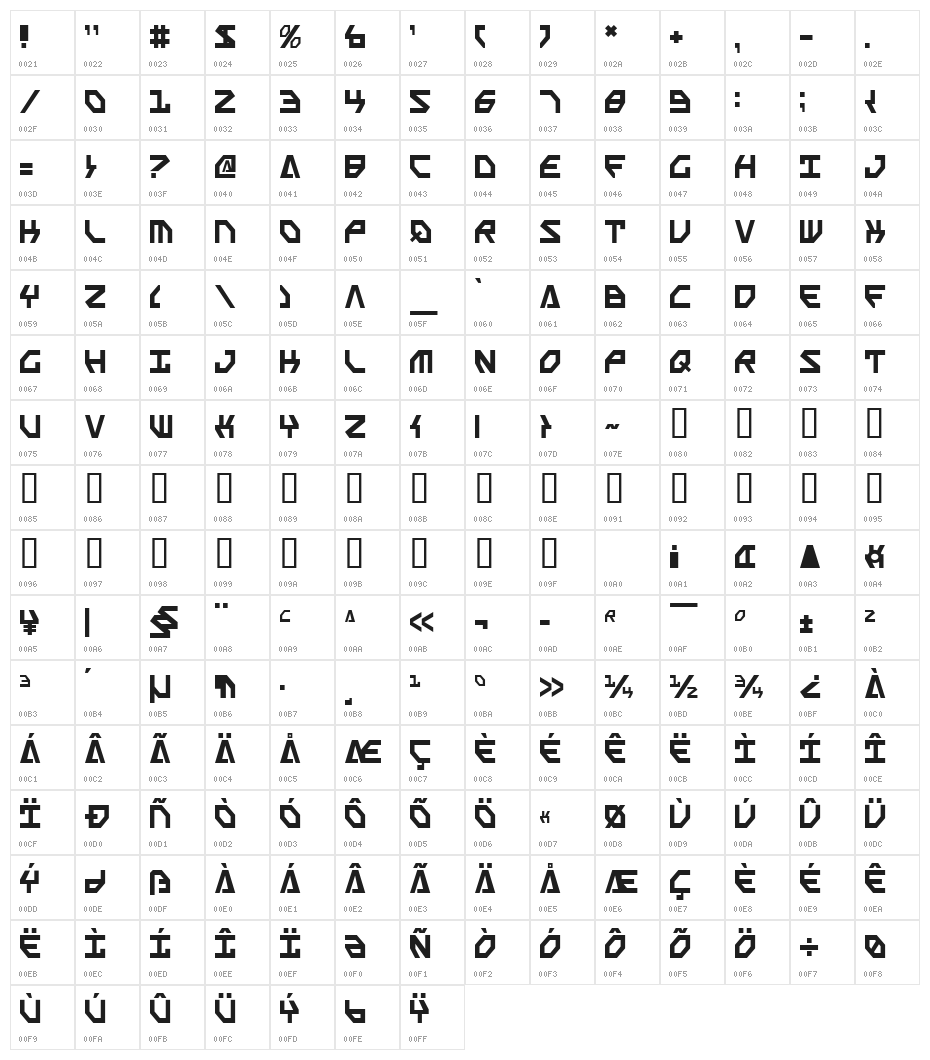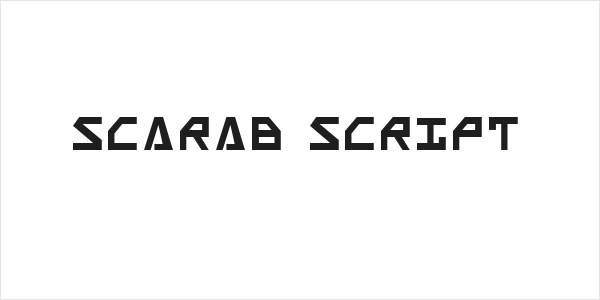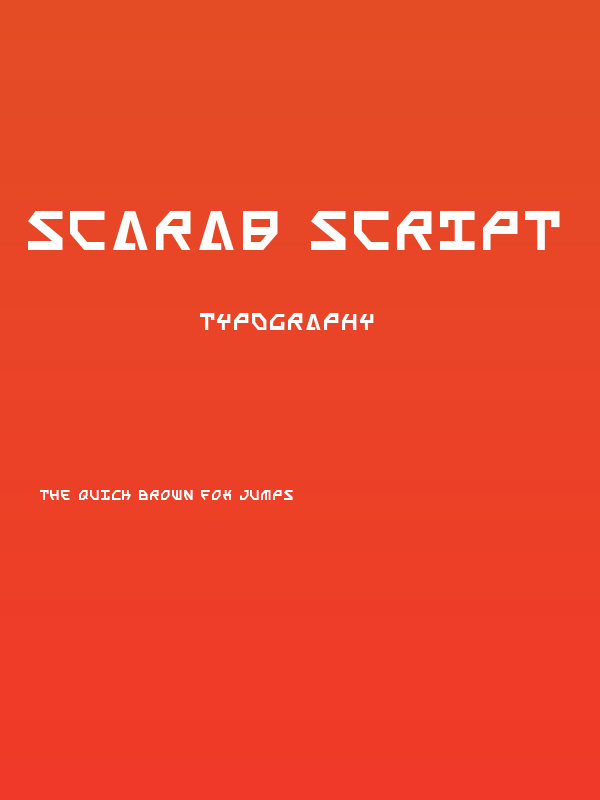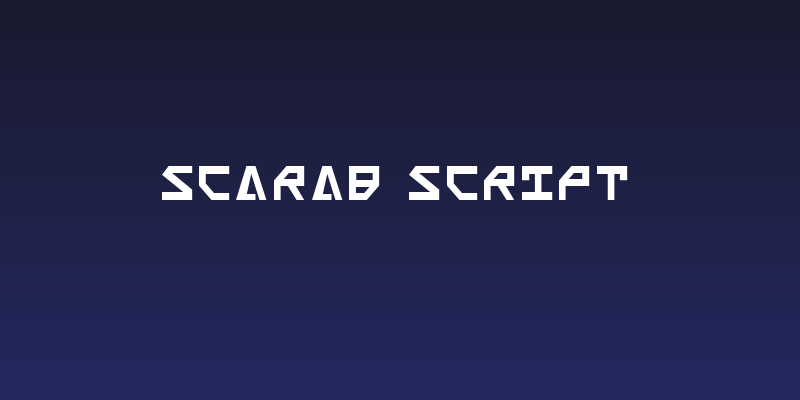
Scarab Script Font
Scarab Script Description
This font features a bold, geometric design with sharp angles and a futuristic aesthetic. The characters are constructed with thick, uniform strokes, giving them a strong presence. The angular shapes and clean lines create a sense of modernity and innovation. The uppercase and lowercase letters maintain a consistent style, while the numbers and special characters complement the overall design. This font is ideal for projects that require a bold and distinctive look, such as technology branding, sci-fi themed designs, or modern art posters.
| Proposed Projects | Ideal for technology branding, sci-fi themed designs, modern art posters, and innovative product packaging. |